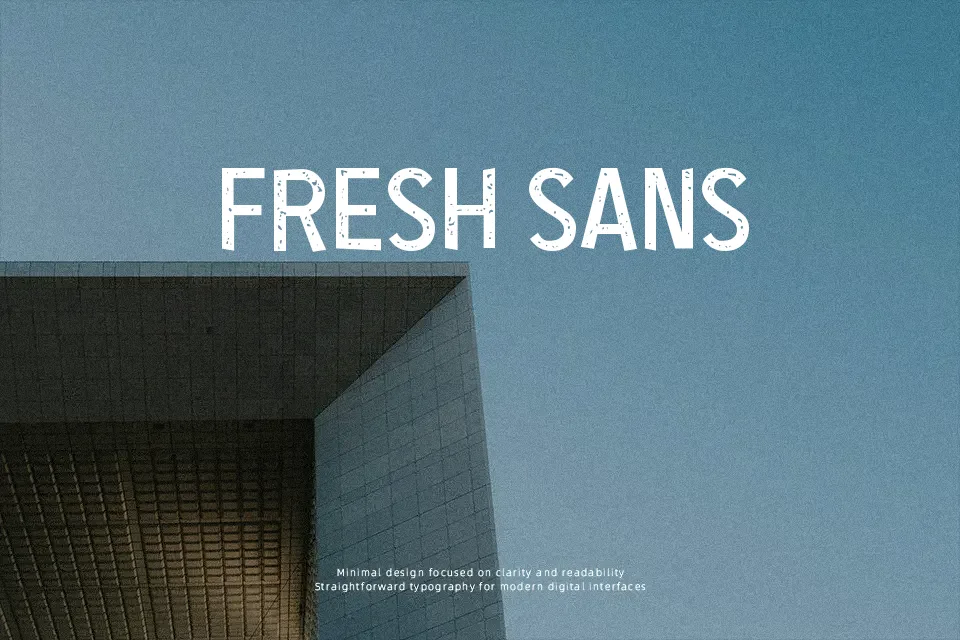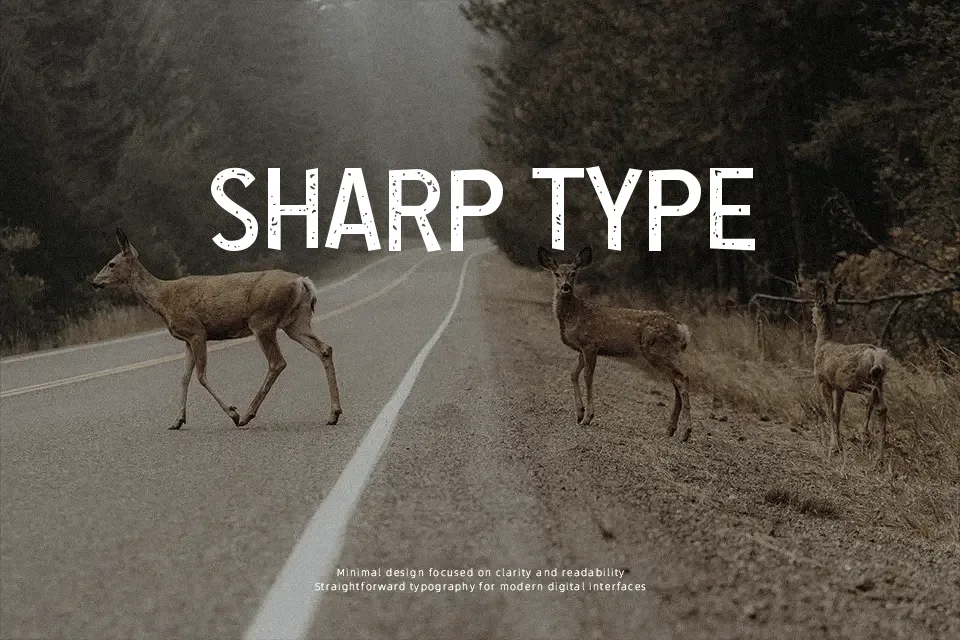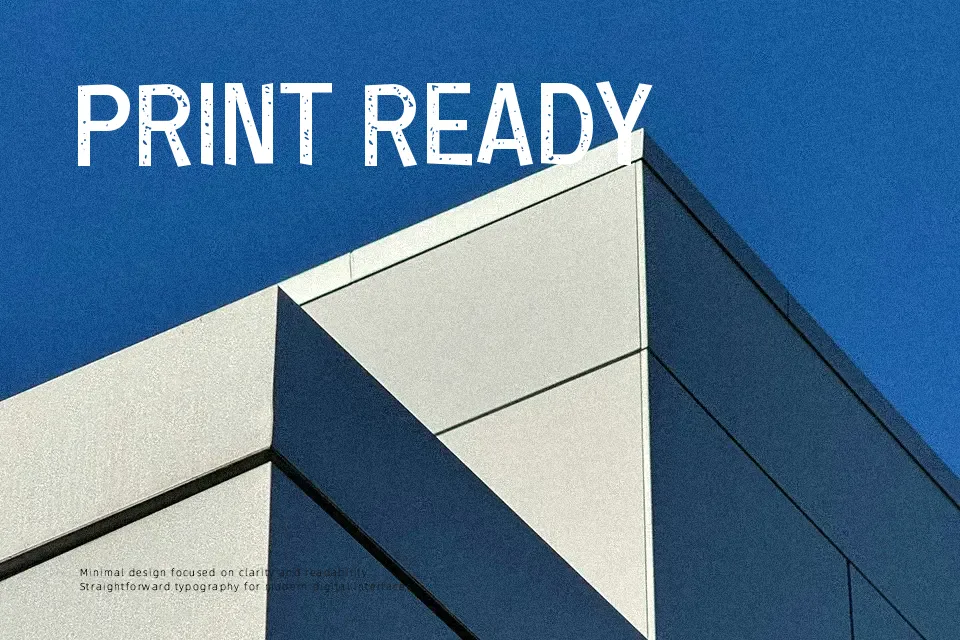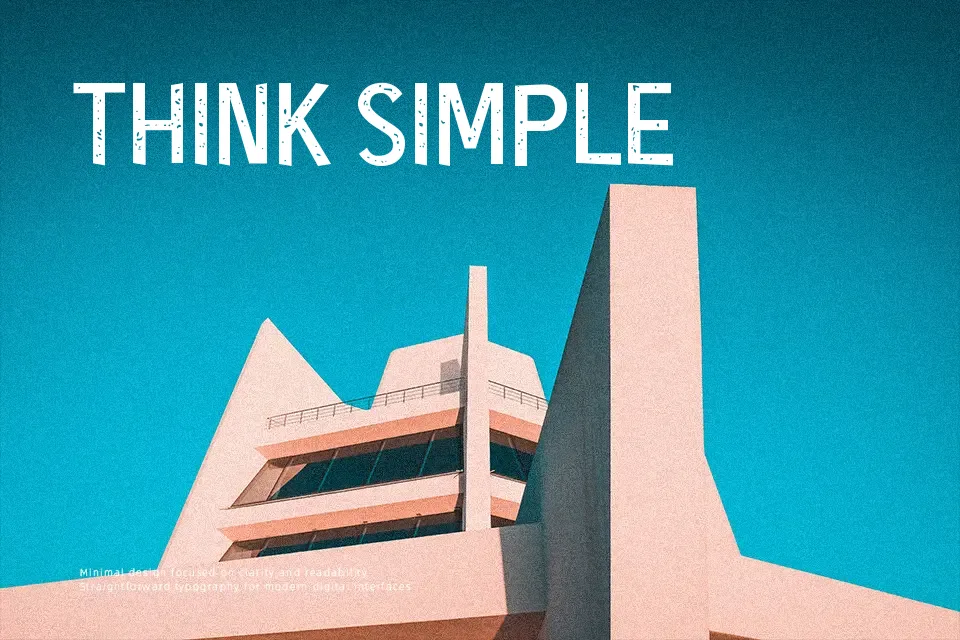
a Ambang Resesi Font
Worn-edge letterforms and chunky strokes define a Ambang Resesi — a display font sitting somewhere between industrial grit and street-culture boldness. The texture applied across each character gives it a hand-stamped, faded quality, making headlines feel aged and raw rather than polished. At larger sizes, the eroded detail reads with strong character; shrink it down and the texture muddies fast, especially in print. It handles single words and short phrases well — think album covers, apparel tags, or event banners — but fights against legibility in multi-line text. Designers looking to evoke underground or counterculture energy will find it useful, while those after clean, professional branding should look elsewhere.
Best For:- Music event or concert poster headlines
– Streetwear and apparel graphic labels
– Halloween or dark-themed social media visuals
– Band or underground brand logo treatments
Not Ideal For:- Body text or multi-line paragraphs
– Corporate or professional documents
– Small-size print applications (business cards, footnotes)
– Clean, minimal UI or web interfaces
Perfect for advertising, branding, and fashion, with a bold and decorative style.